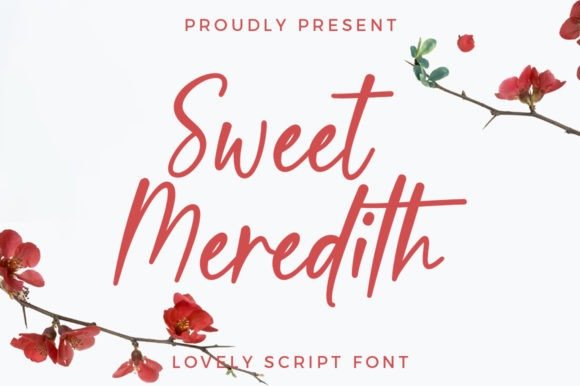
Sweet Meredith Script Font
Sweet Meredith Script Font inspired by urban fonts with sharp and beautiful letters that create fonts that are modern, trendy and elegant. It’s designed and shared by Typesthetic Studio. This typeface is a modern calligraphy font with handwritten, sophisticated flows. Sweet Meredith perfect for logos, wedding stationery, cards, gift designs, photography, watermark, product packaging and handwritten quotes. This font also includes ligature, full set of uppercase and lowercase letters, multilingual symbols, numerals and punctuation.